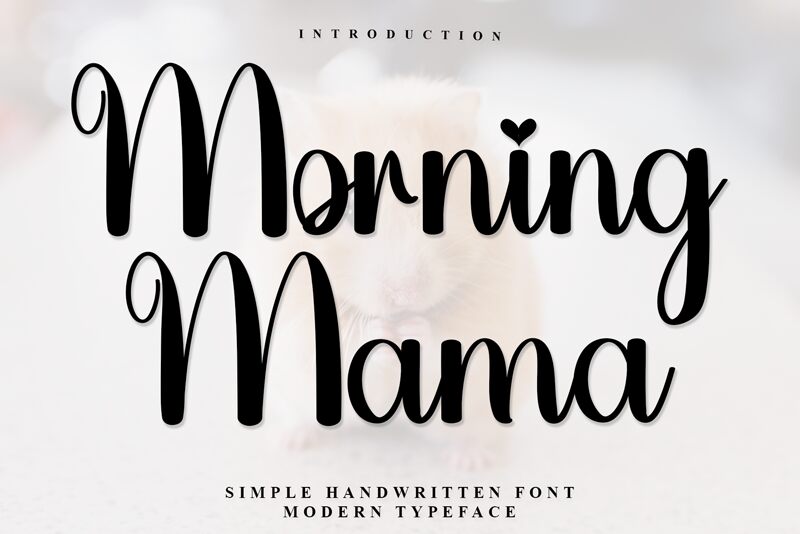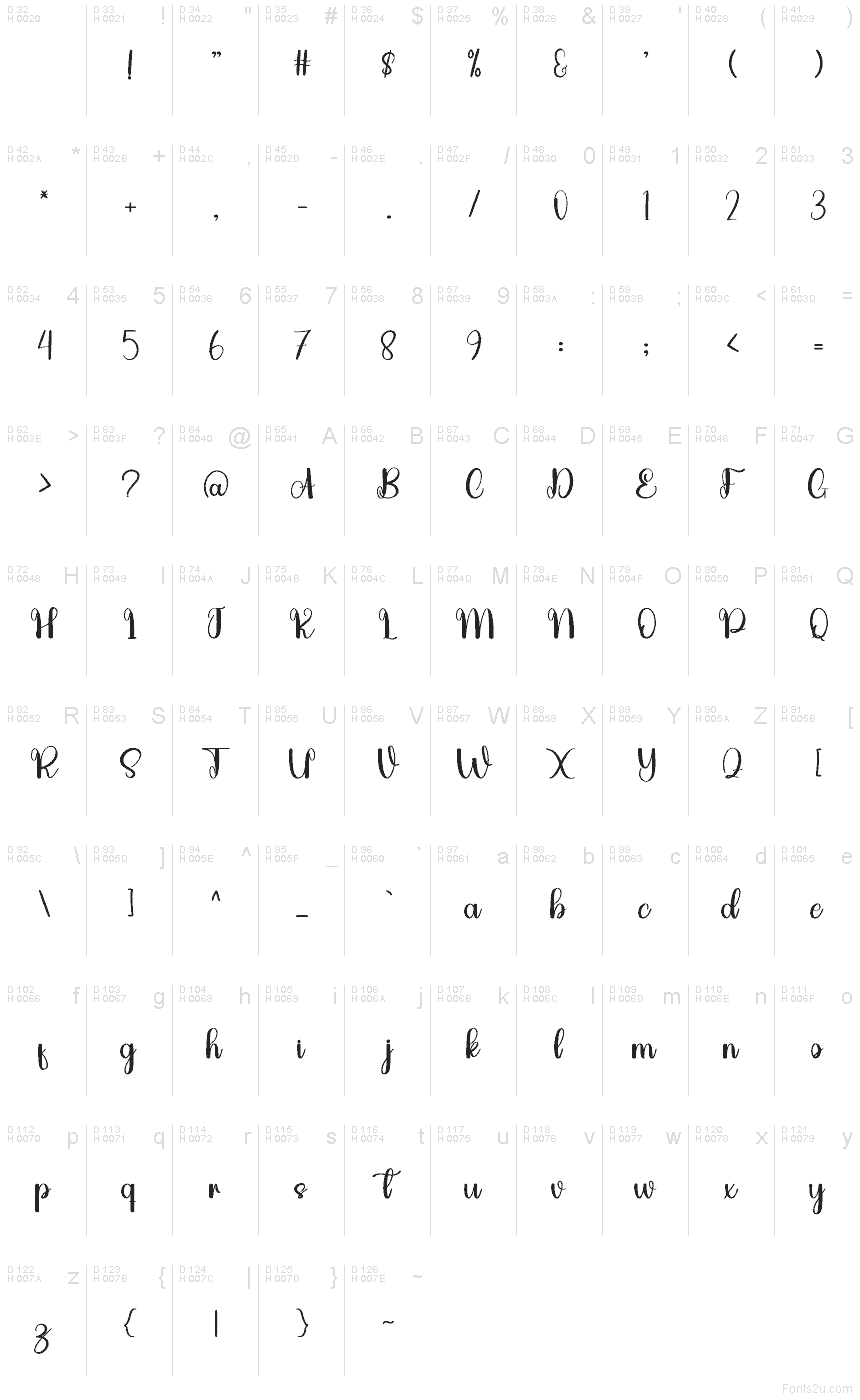
Morning Mama
Morning Mama font by Inermedia Studio is a free handwritten script typeface that nails the sweet spot between charm and readability. Its inky, rounded strokes and easy, bouncy rhythm feel like a quick note on smooth paper—playful, but not messy. The letters link with confident loops and a gentle slant, creating a warm voice that stays clear even when set smaller than most scripts.
Using Morning Mama, headlines and short lines sing on baby shower invites, bakery packaging, brand marks, quotes, social posts, product tags, and greeting cards. This free font works beautifully when you give it a little breathing room; bump the tracking slightly and let the loops shine. Pair with a quiet, light-weight sans for body copy to keep the message crisp and friendly.